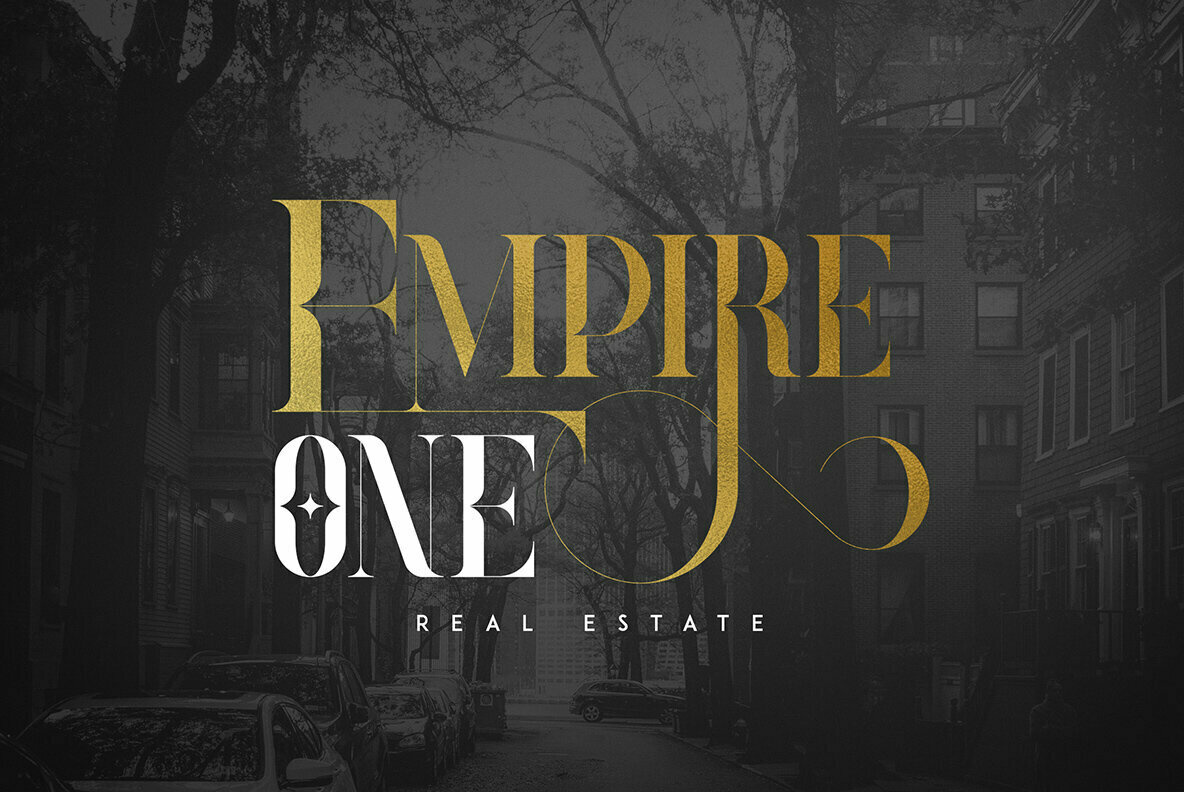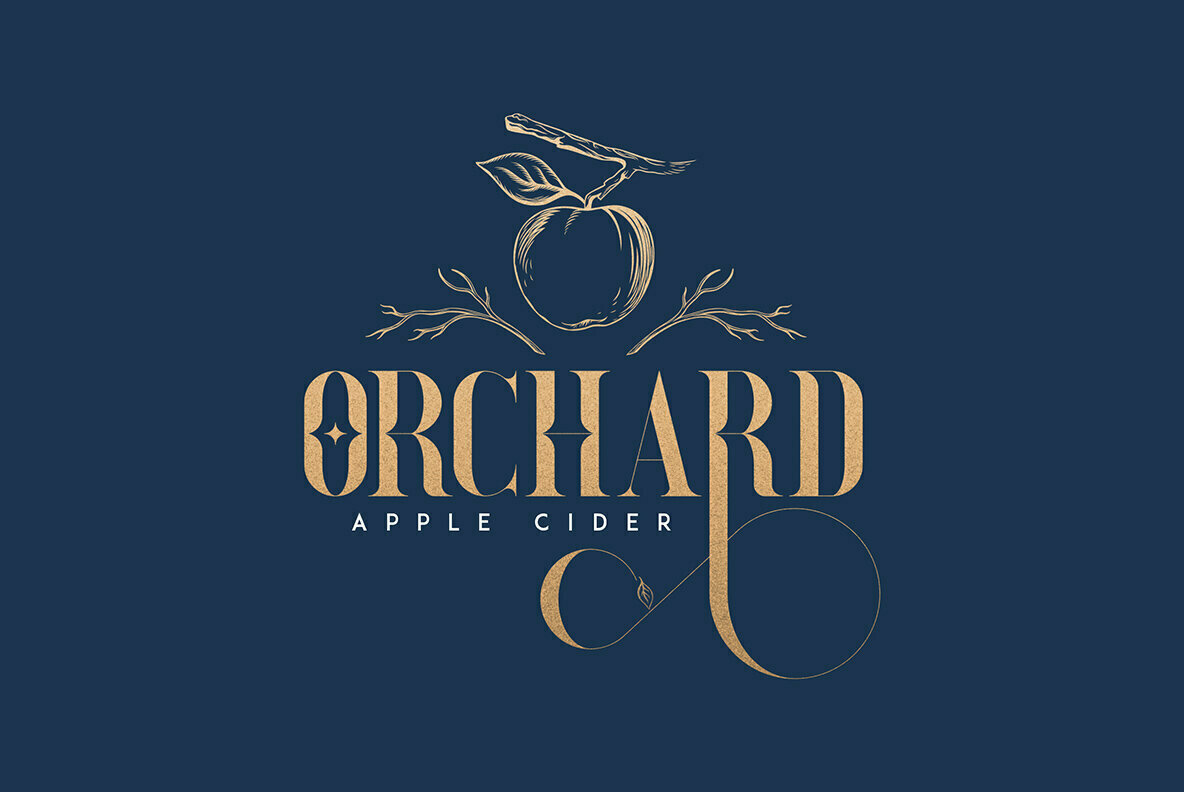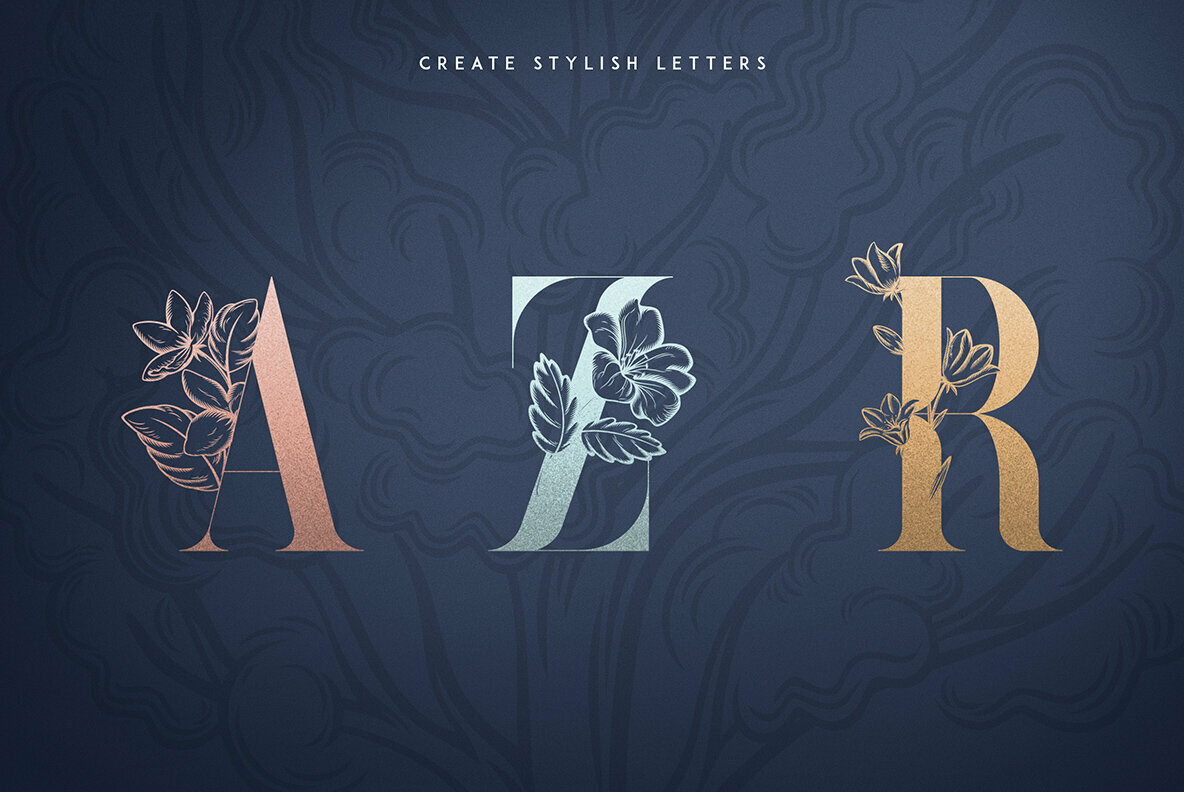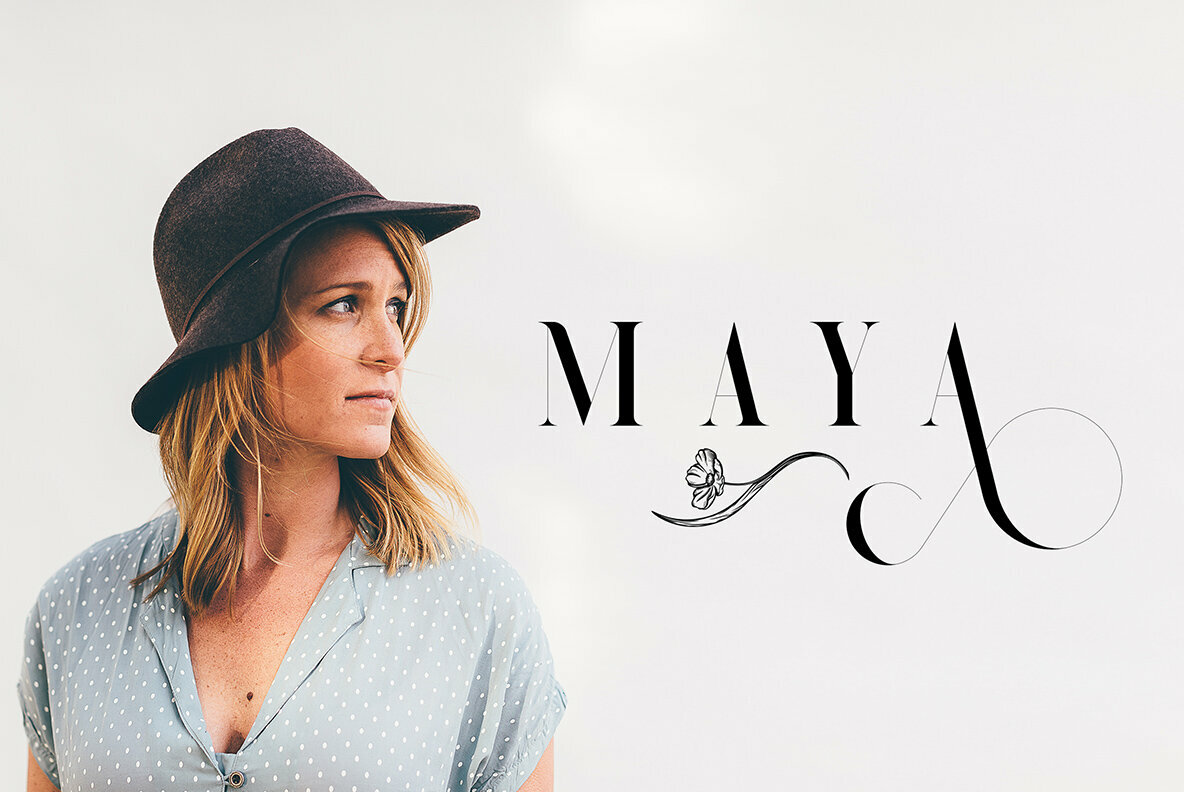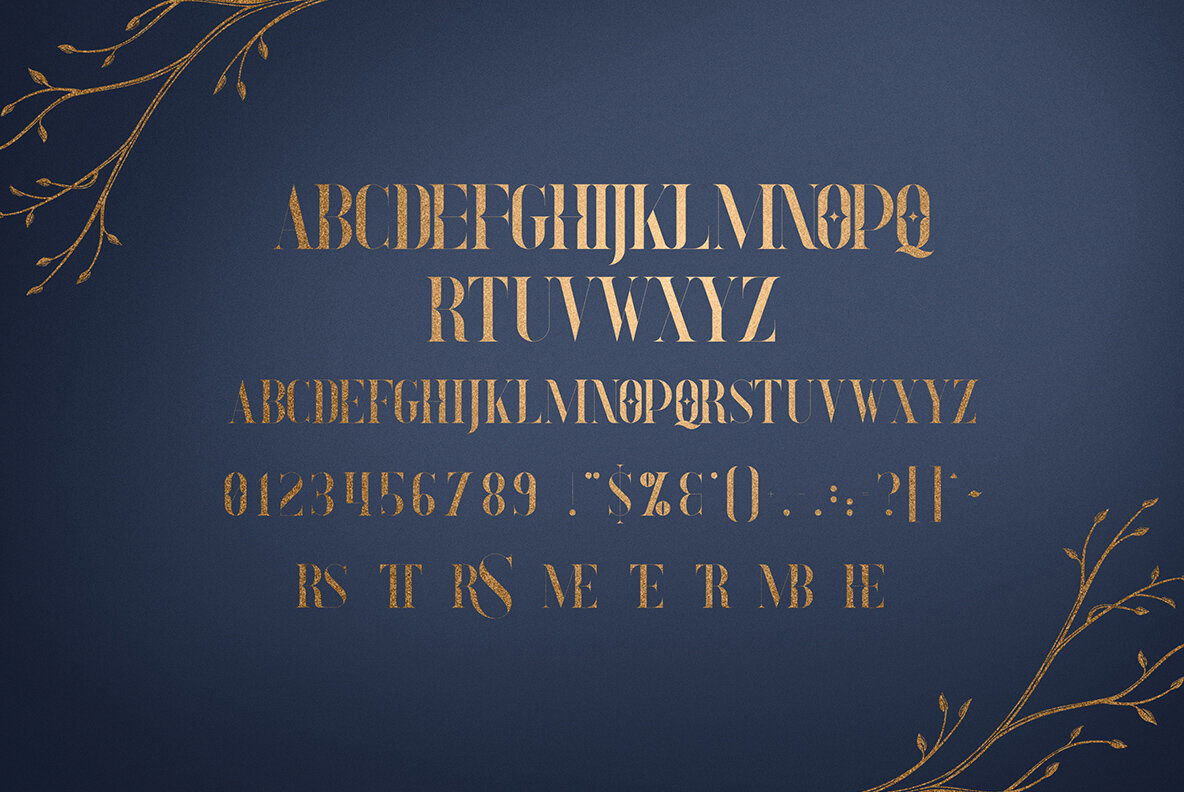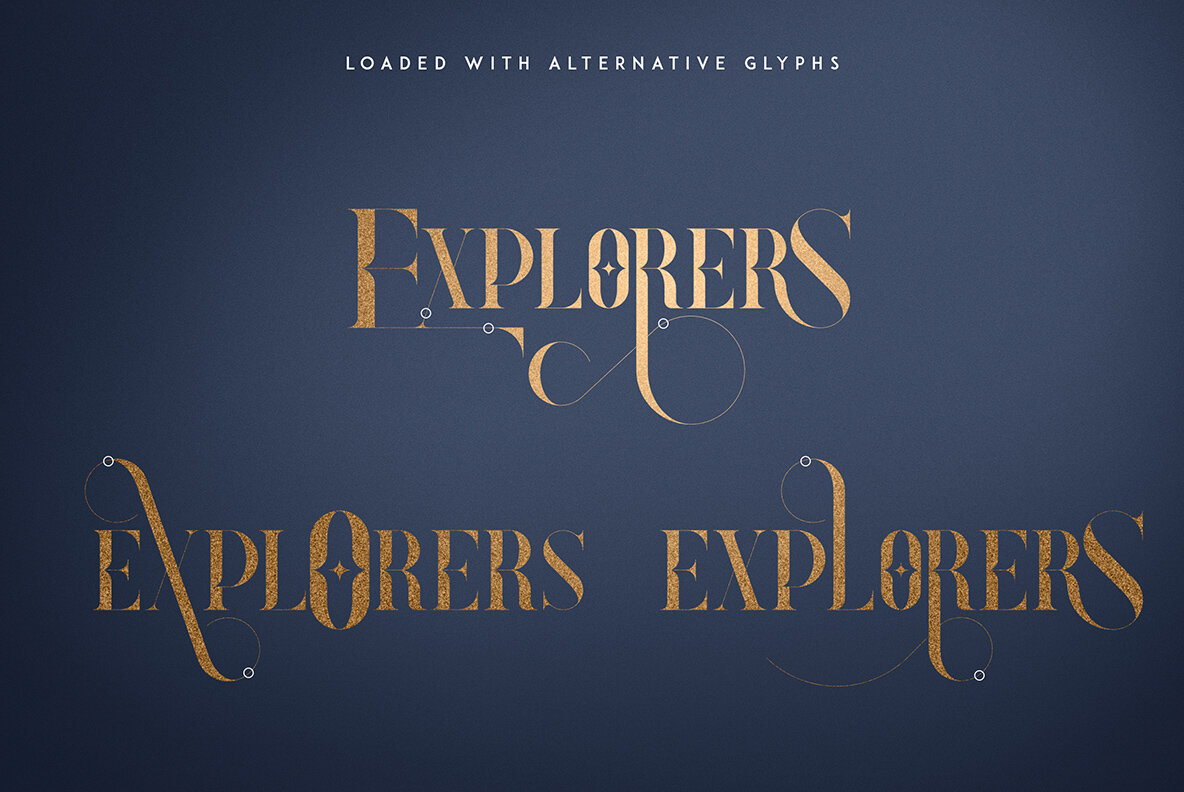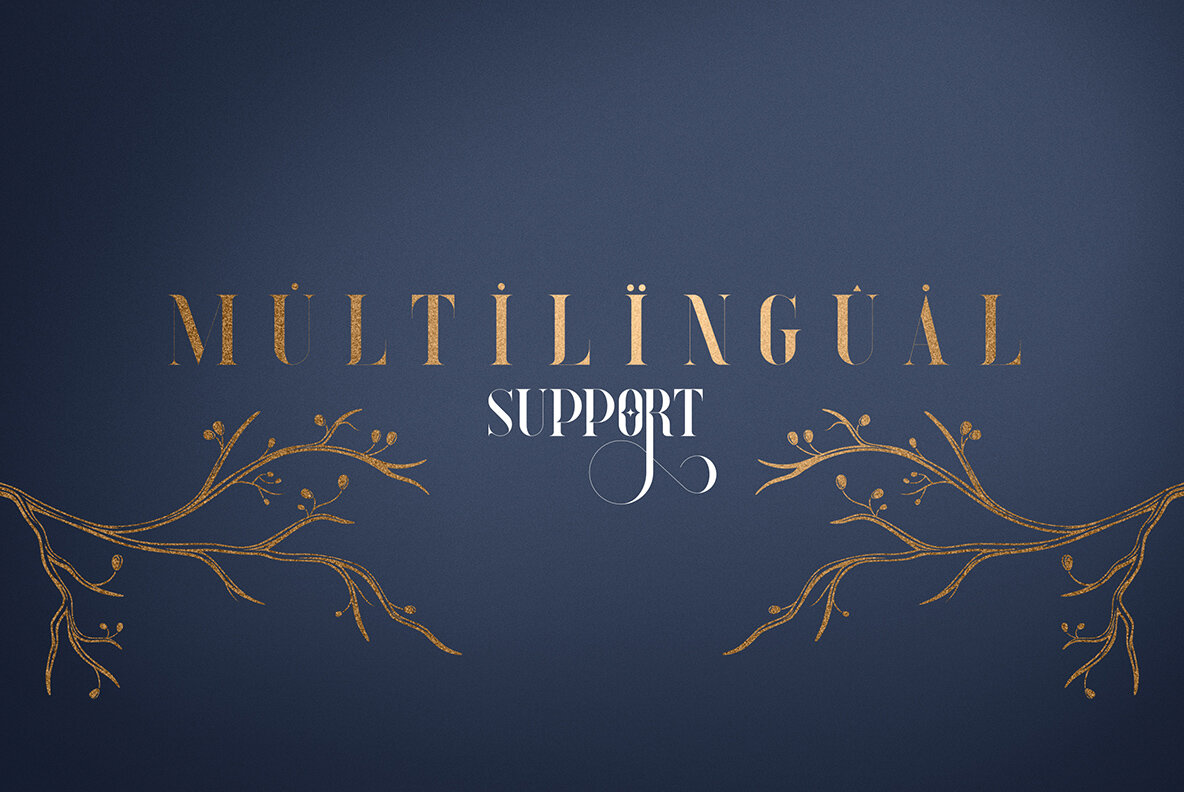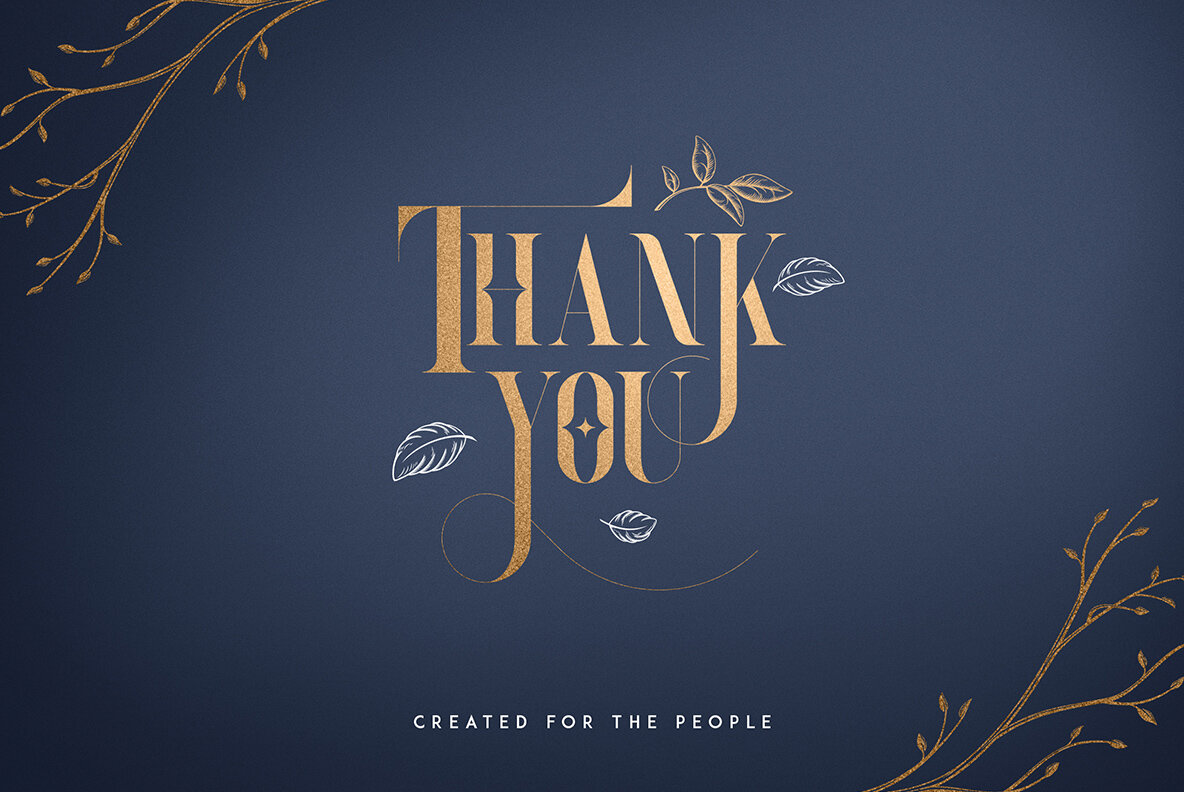
Explorers Font
Explorers presents a refined serif typeface, where elegance meets versatility. This sophisticated font boasts an array of alternative glyphs and ligatures, enriched by elements, Photoshop styles, and broad multilingual support. It's a fitting choice for both expansive headlines and delicate text, bringing an element of style to any dimension. Ideal for diverse projects, Explorers excels in branding initiatives, homeware design, product packaging, and magazine headers. It also offers a classy touch as a text overlay against any backdrop. Tailored to meet the needs of design professionals, this font encompasses a suite of features that enhance creativity and functionality. Features:Explorers: A Sophisticated Serif Font with Versatile Extras